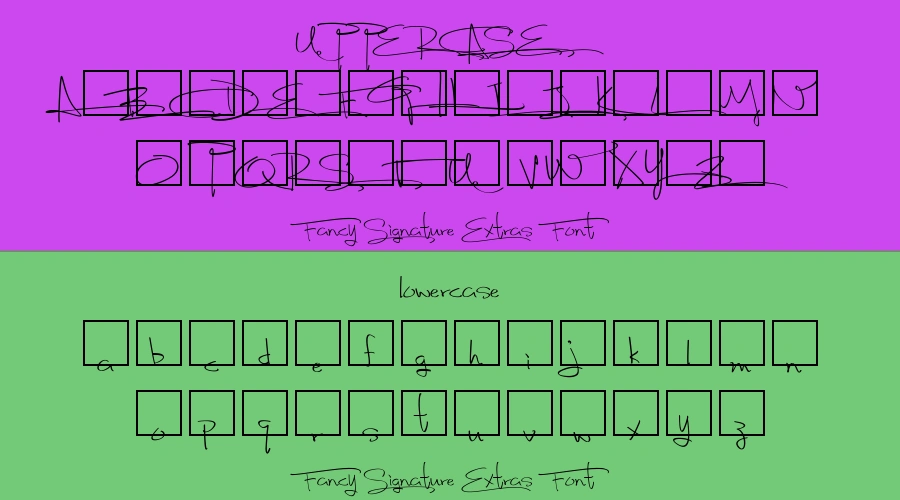
About Fancy Signature Extras Font
Fancy Signature Extras Font stands out for its distinctive combination of artistic freedom and visual impact. Ideal for scientific papers, it provides the durability and visual appeal that professional projects demand. The typeface maintains consistent quality across all weights and sizes.
Key features include refined ball terminals and practical word-end alternates, enhancing typographic expression. In packaging applications, Fancy Signature Extras Font demonstrates exceptional large format impact. The corner treatment and historical reference contribute to its distinctive character and professional appeal.